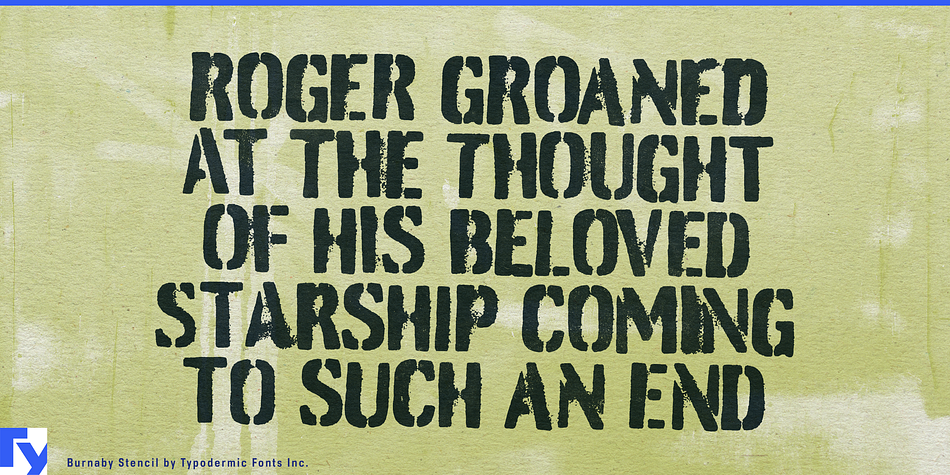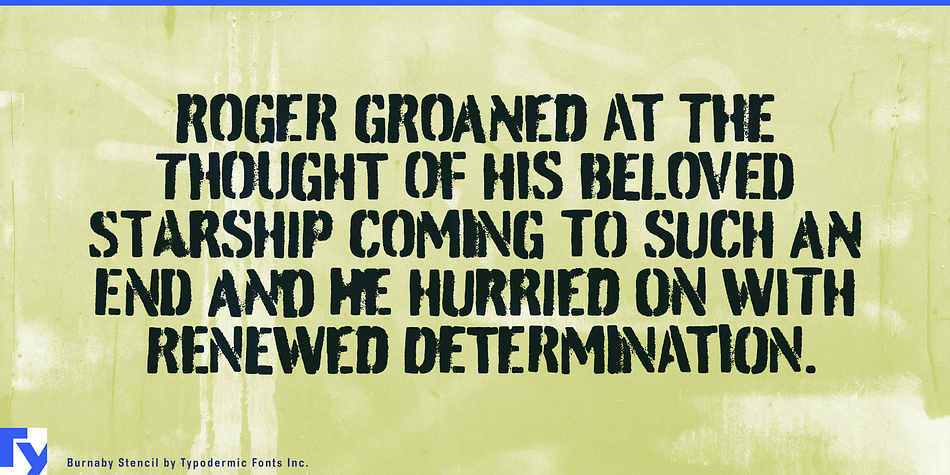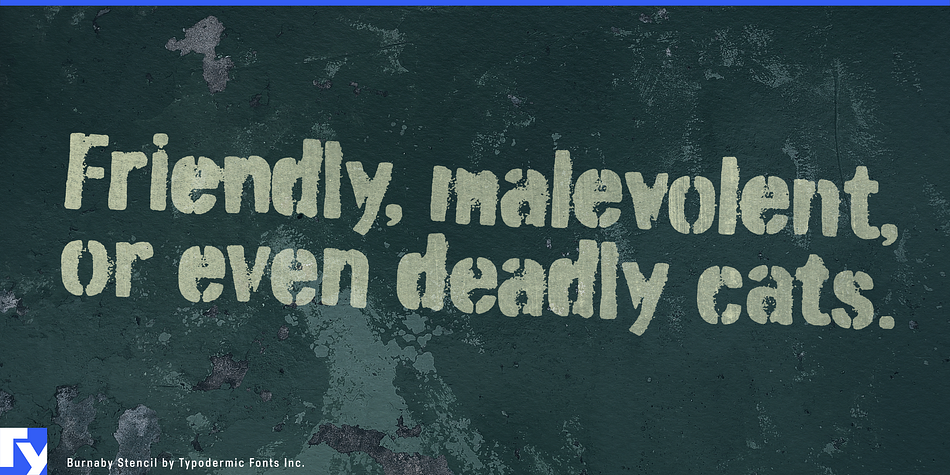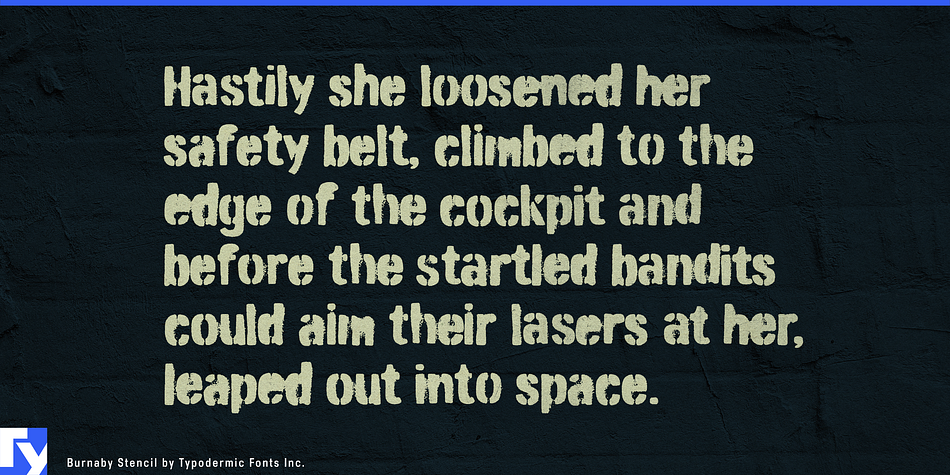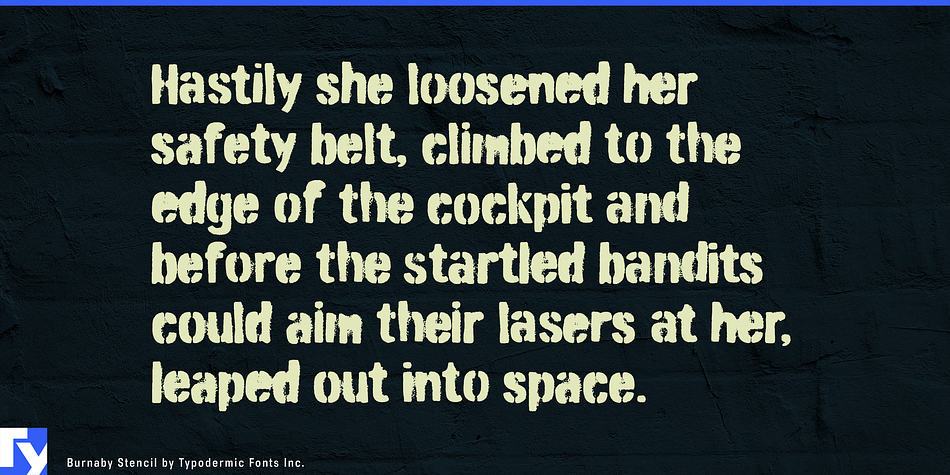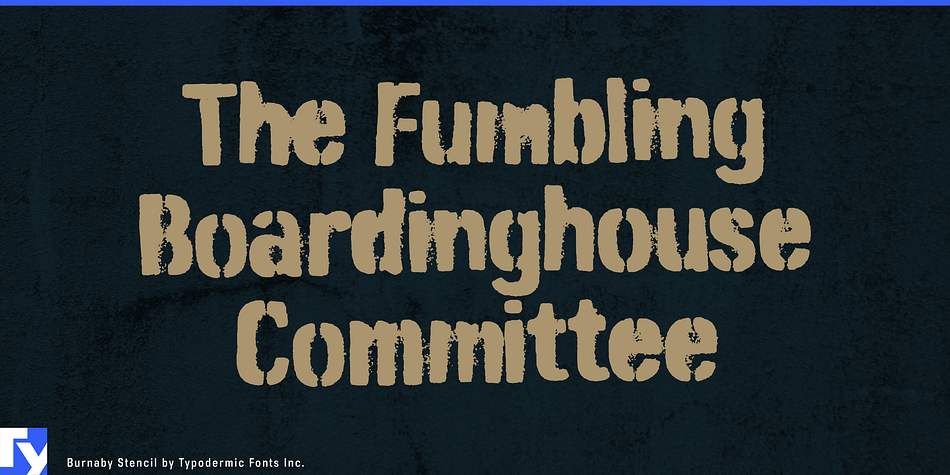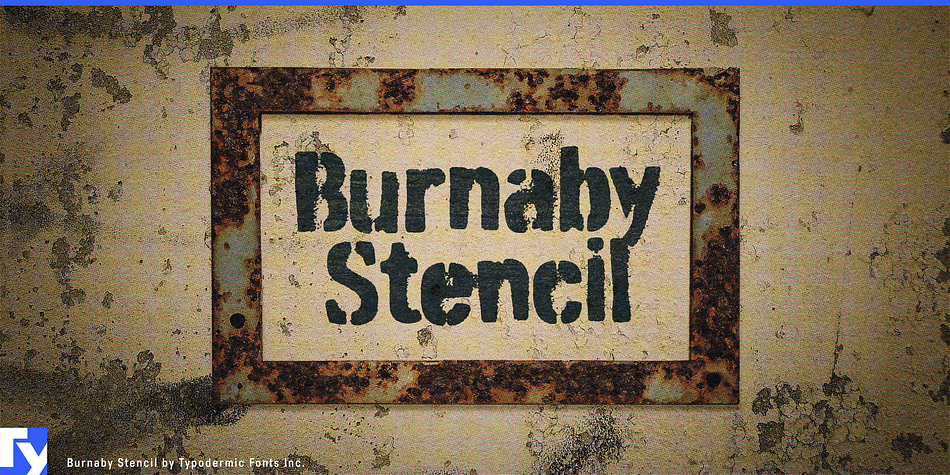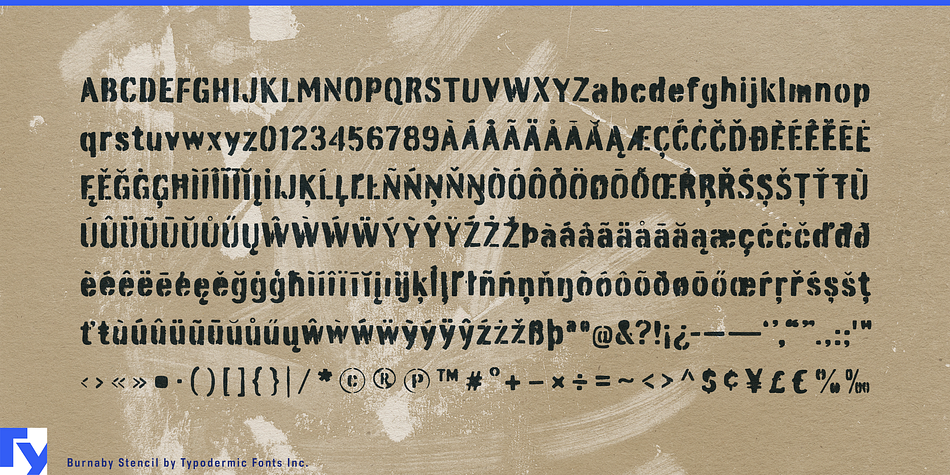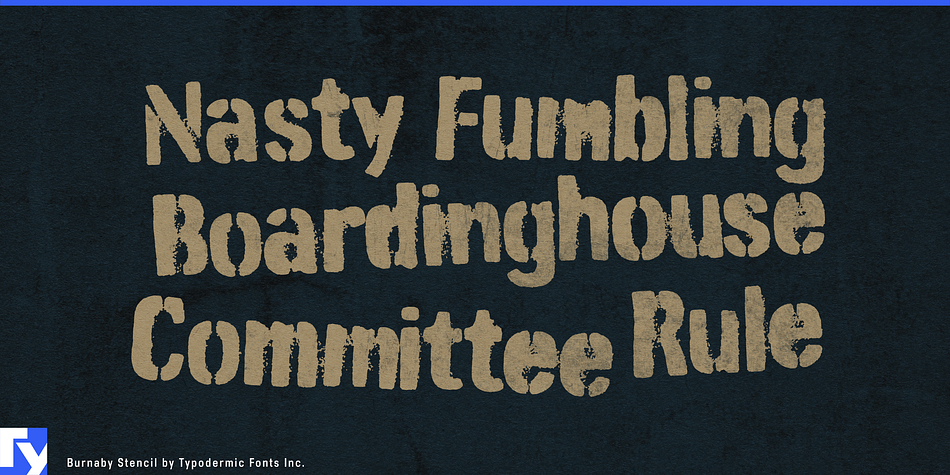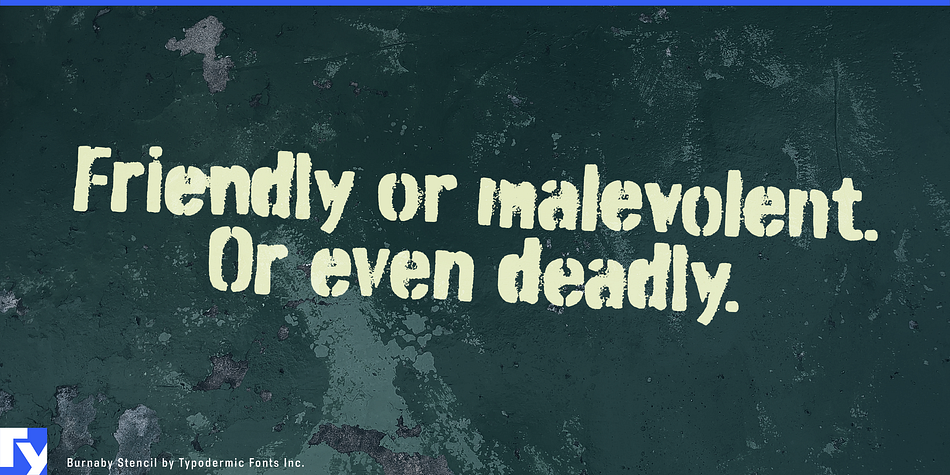
Burnaby is a grunge and stencil font published by Typodermic Fonts Inc.
Burnaby Stencil is an oversprayed headline typeface. In OpenType savvy applications, custom letter pairs are automatically substituted for a more natural looking effect.